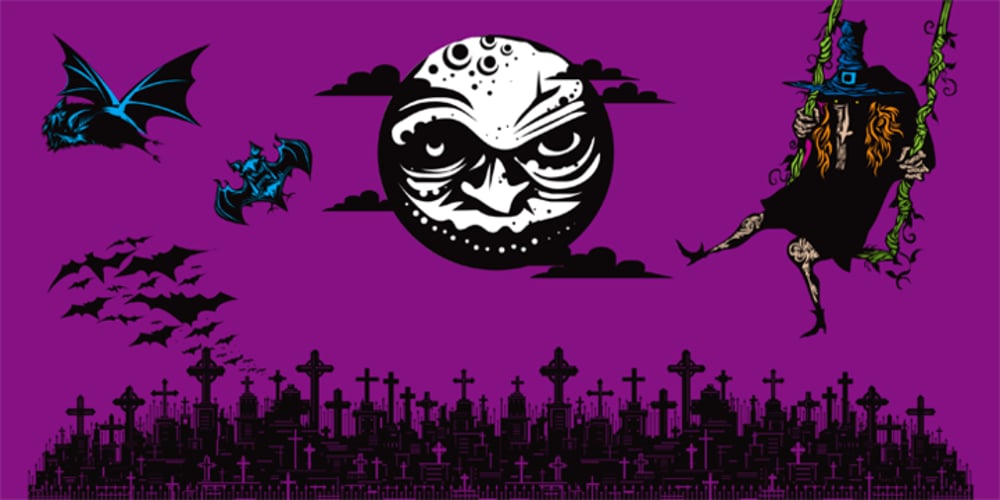
HallowHell Dingbats
HallowHell Dingbats font
HallowHell Dingbats Font Family was designed by Samuel Casal and published by Just in Type. HallowHell Dingbats contains 1 styles and family package options. Halloween can be either fun or scary when you look closely. As well as the dingbats, Samuel Casal has created magnificent illustrations on the same theme. When enlarged, nightmarish fun is revealed behind the masks and fancies.